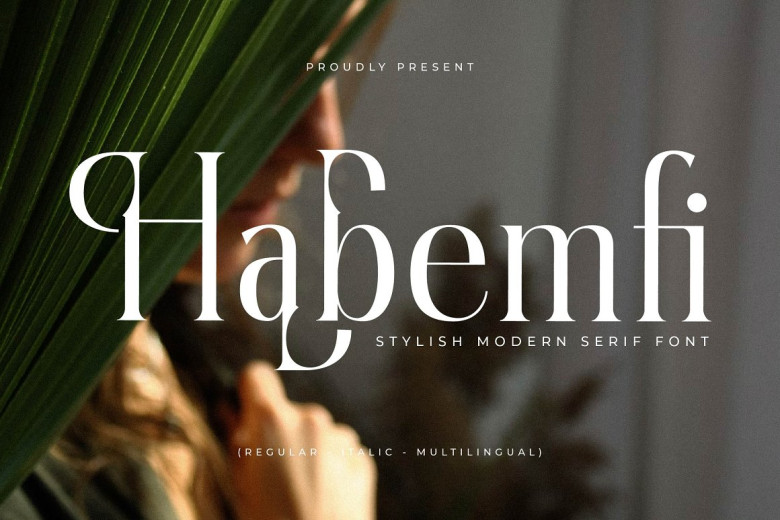
Habemfi Font
Habemfi Font, developed by Storytype, is a serif modern classic typeface with its distinct style and contemporary appearance. Ideal for sophisticated logo design projects such as movie or book titles design; fashion brand magazines, clothing lettering quotes etc, Habemfi can make an excellent addition to any project’s visual identity.
Habemfi Serif Font